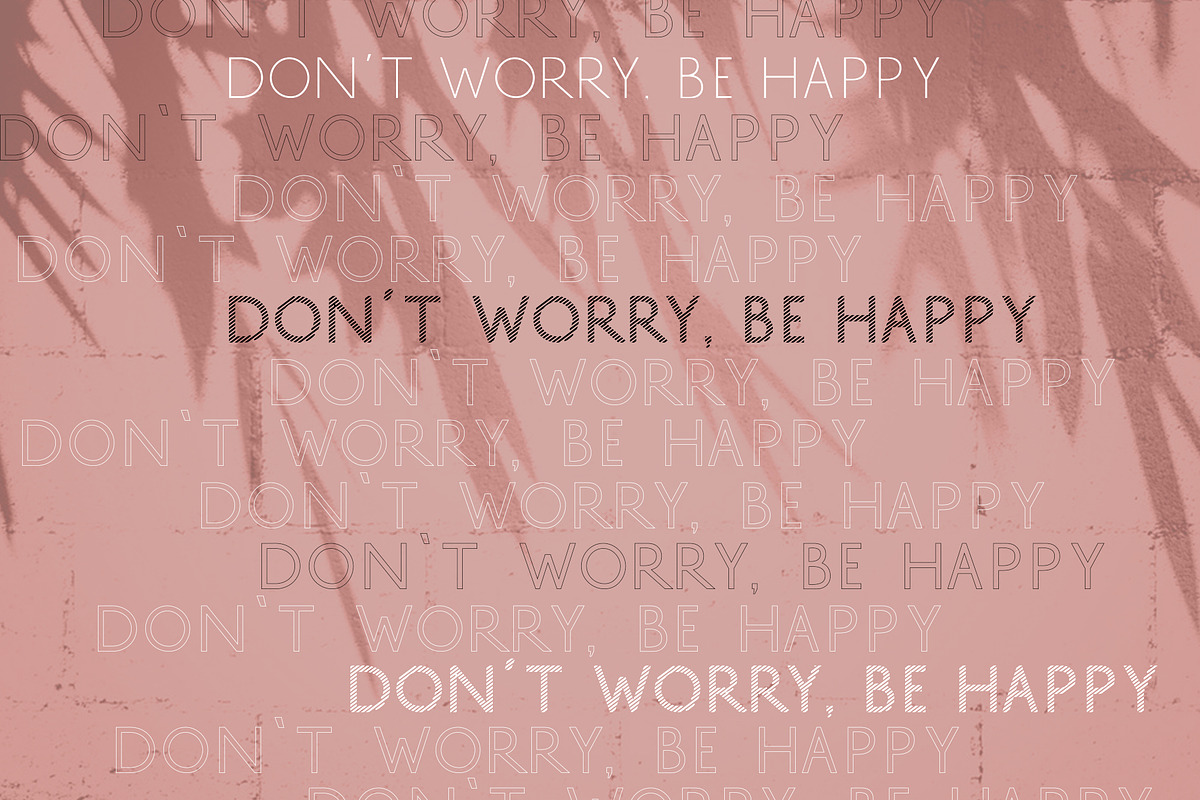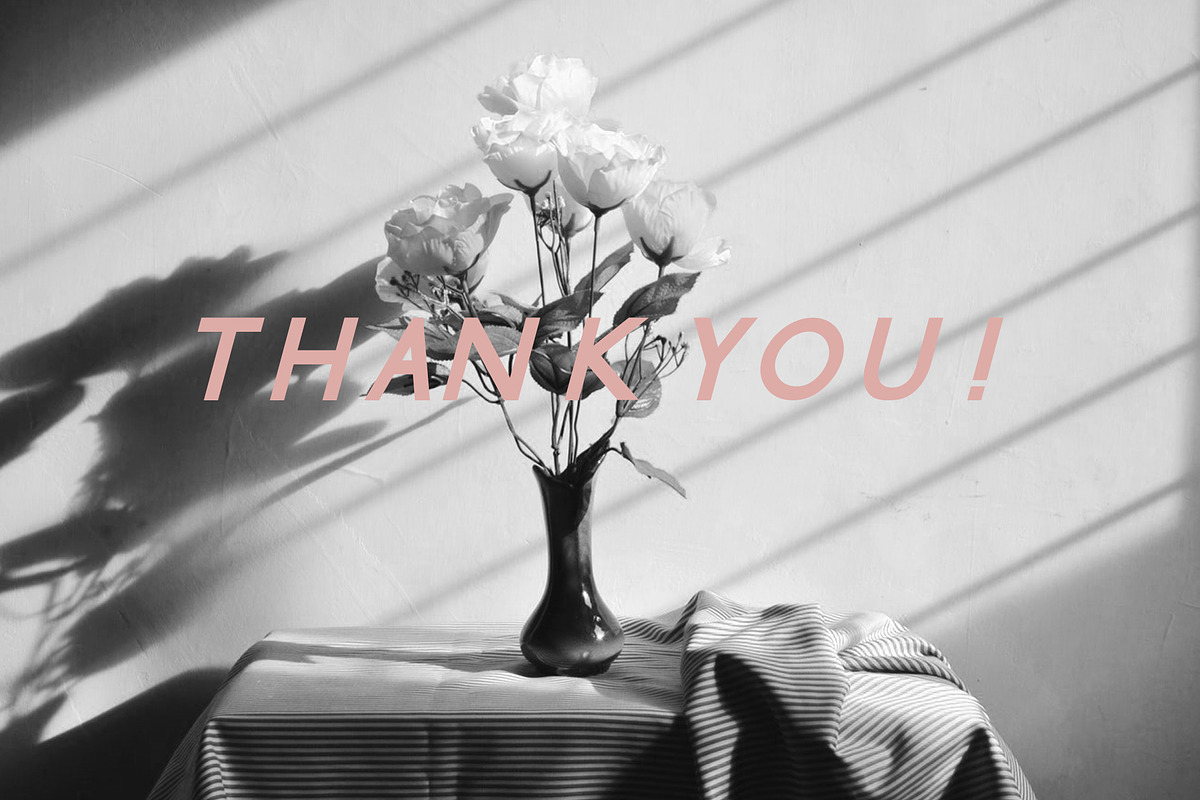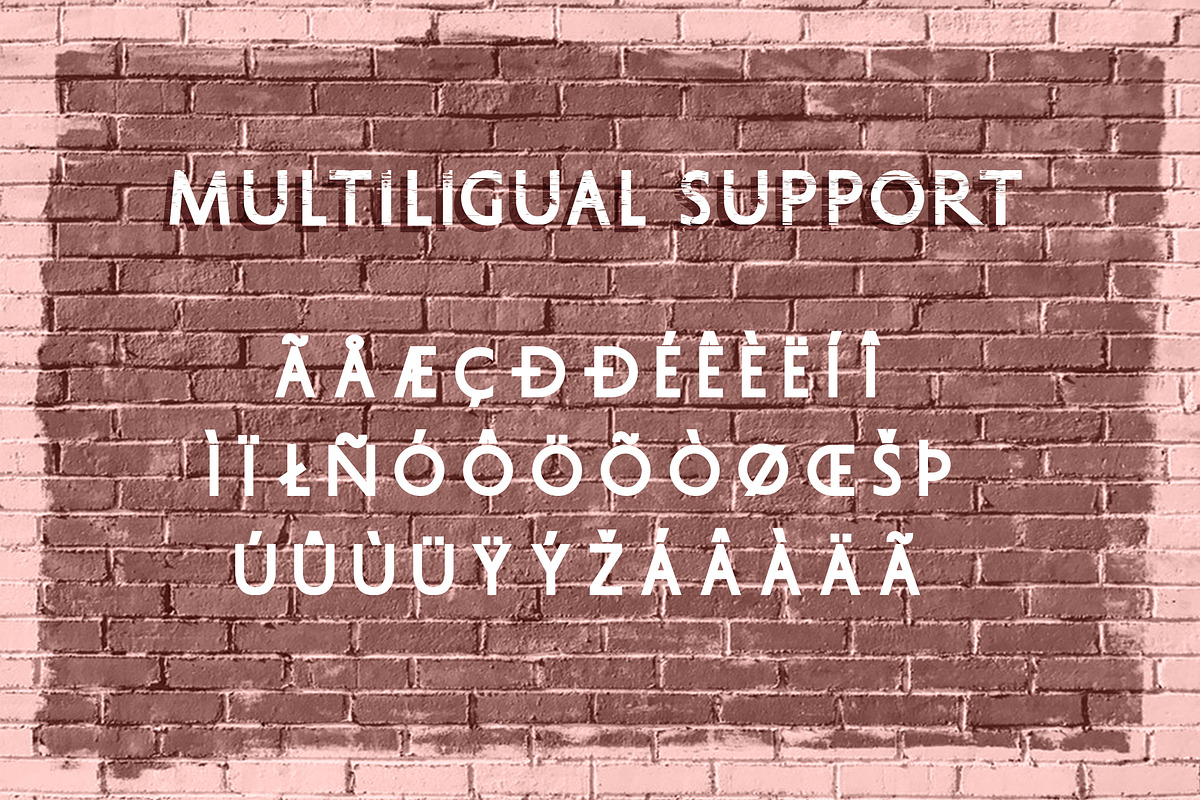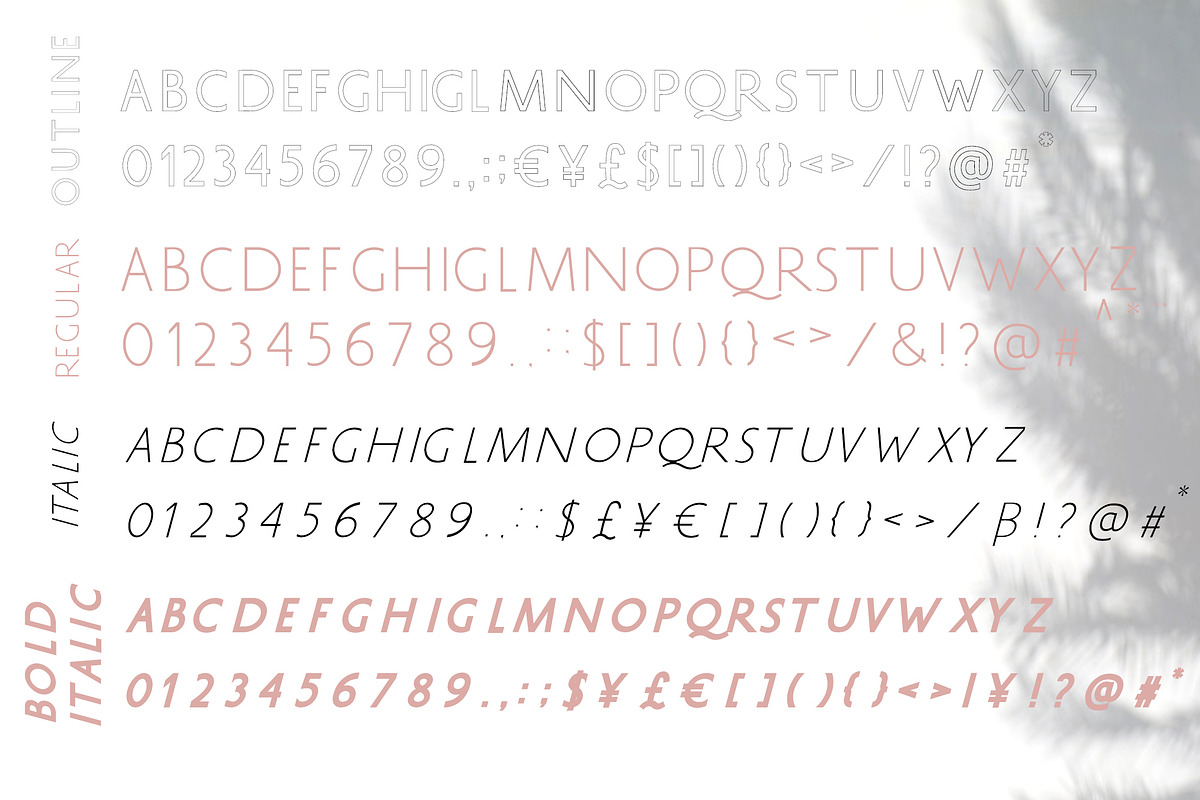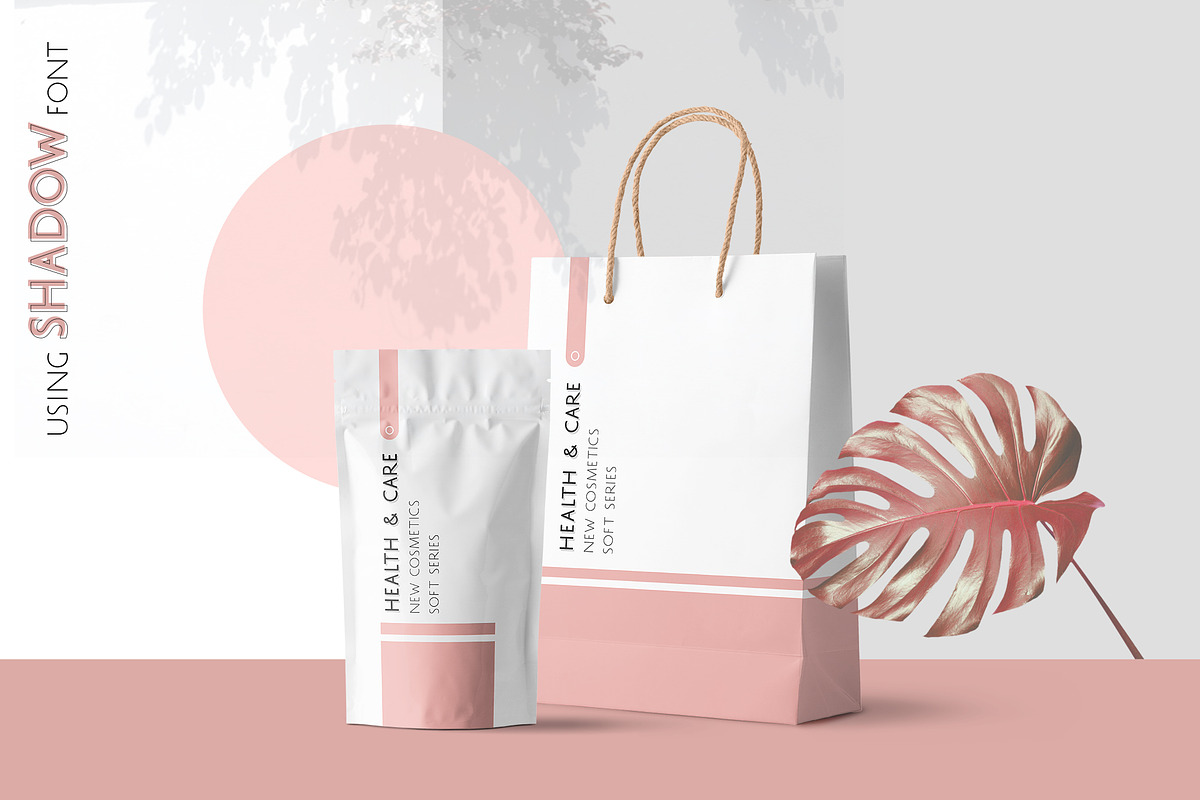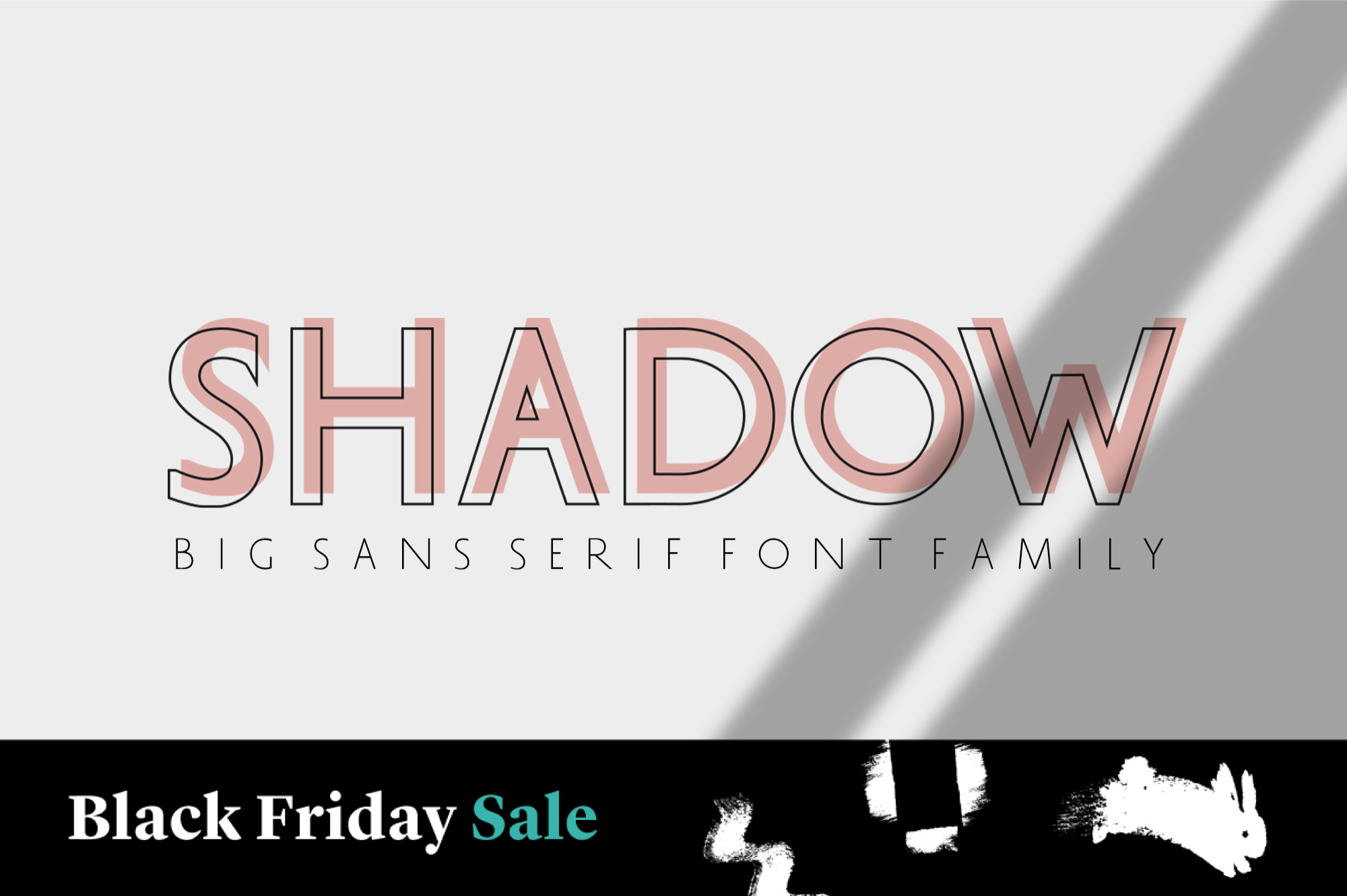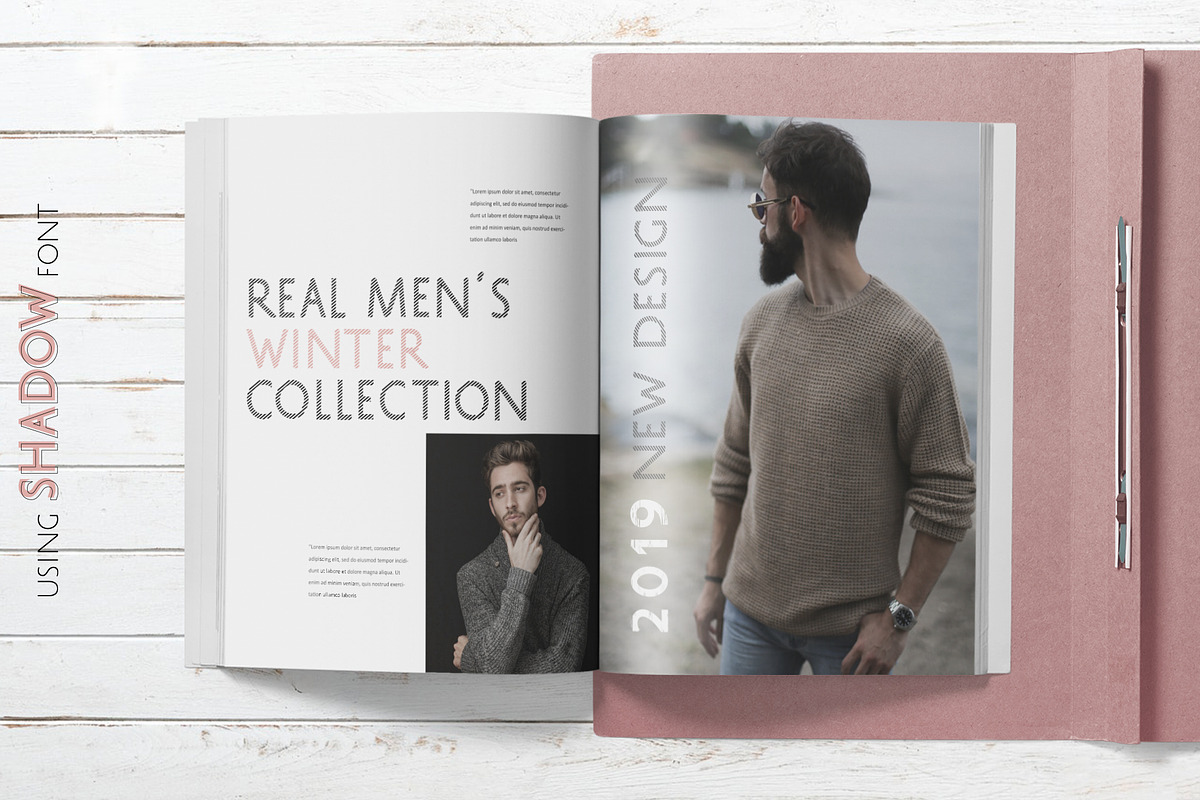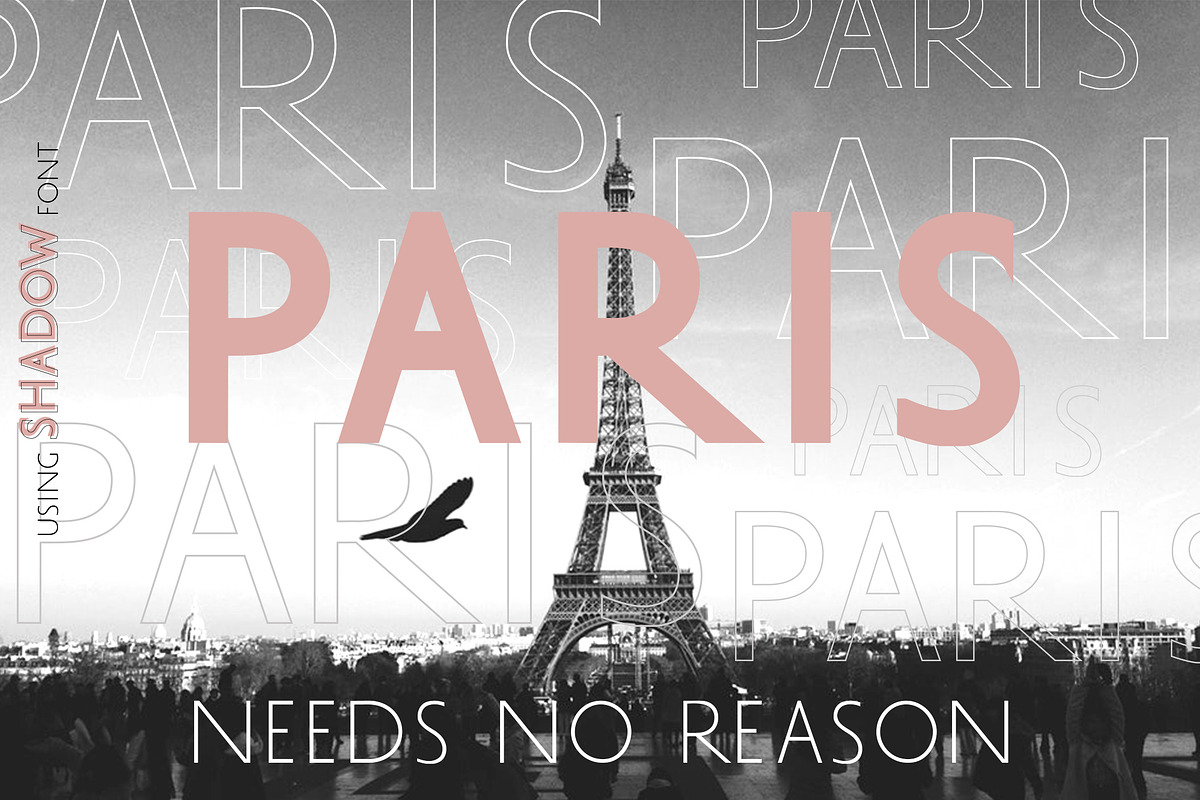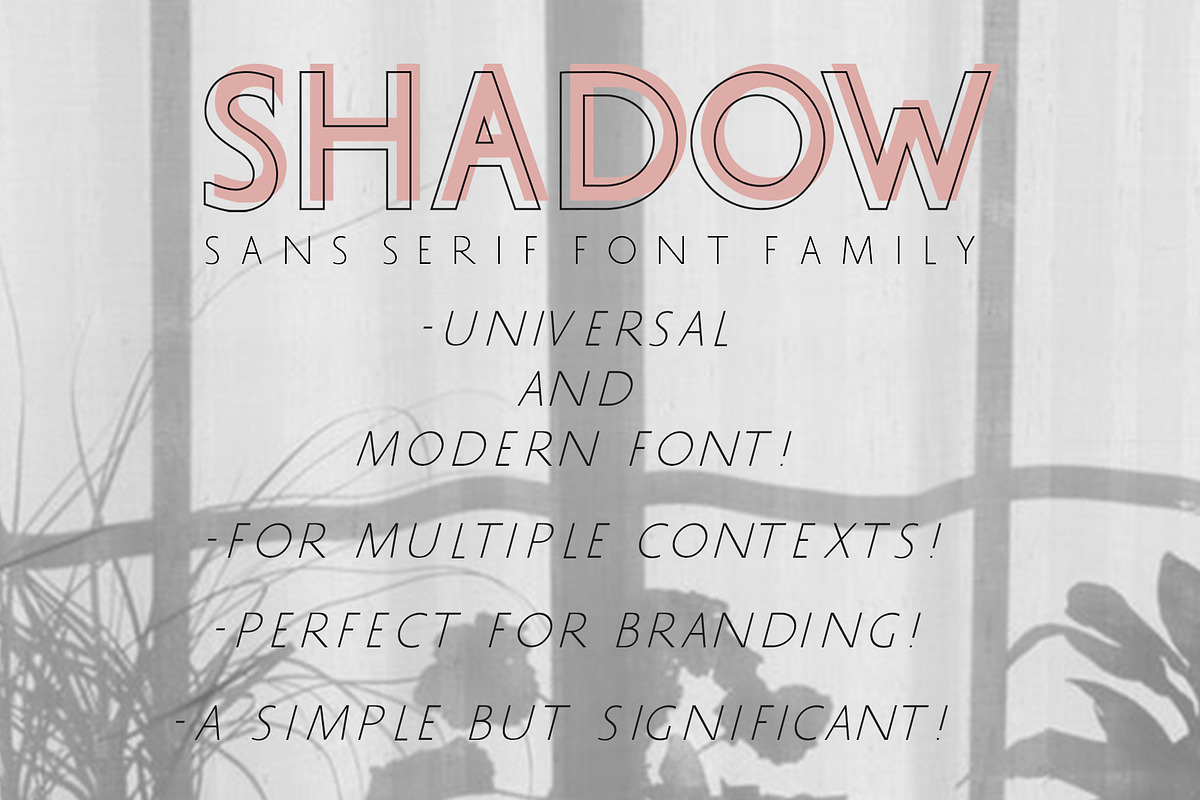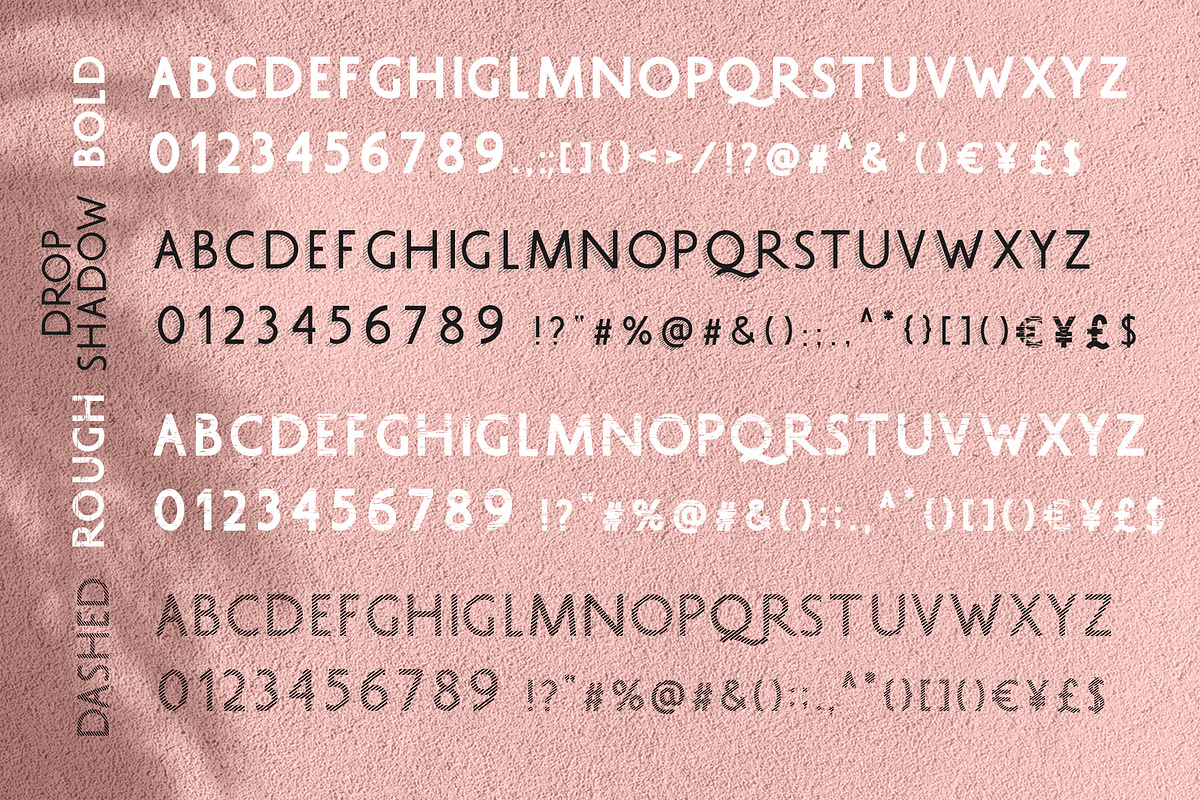
SHADOW Sans Serif Font Family
SHADOW is universal and modern font! A simple but significant! With minimal but elegant design! The owner of endless possibilities!
It is perfect for multiple contexts. Works great in posters, logos, headlines, packaging, advertising, branding and so much more. This font will easily help you to create the best urban or rustic, elegant or dynamic designs.
SHADOW hosts 10 OTF fonts of different weights and styles:
- SHADOW Light
- SHADOW Light Italic
- SHADOW Regular
- SHADOW Regular Italic
- SHADOW Bold
- SHADOW Bold Italic
- SHADOW Outline
- SHADOW Drop Shadow
- SHADOW Dashed
- SHADOW Rough
Every font has uppercase letters, numbers & basic punctuation, multiligual support (French, German, Italian, Norwegian, Portuguese, Spanish, Swedish, Swiss German).